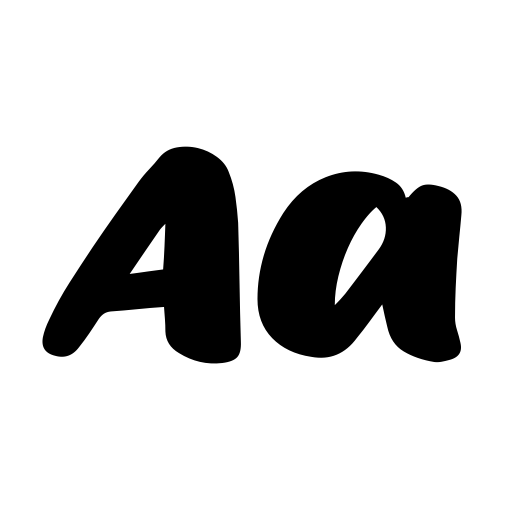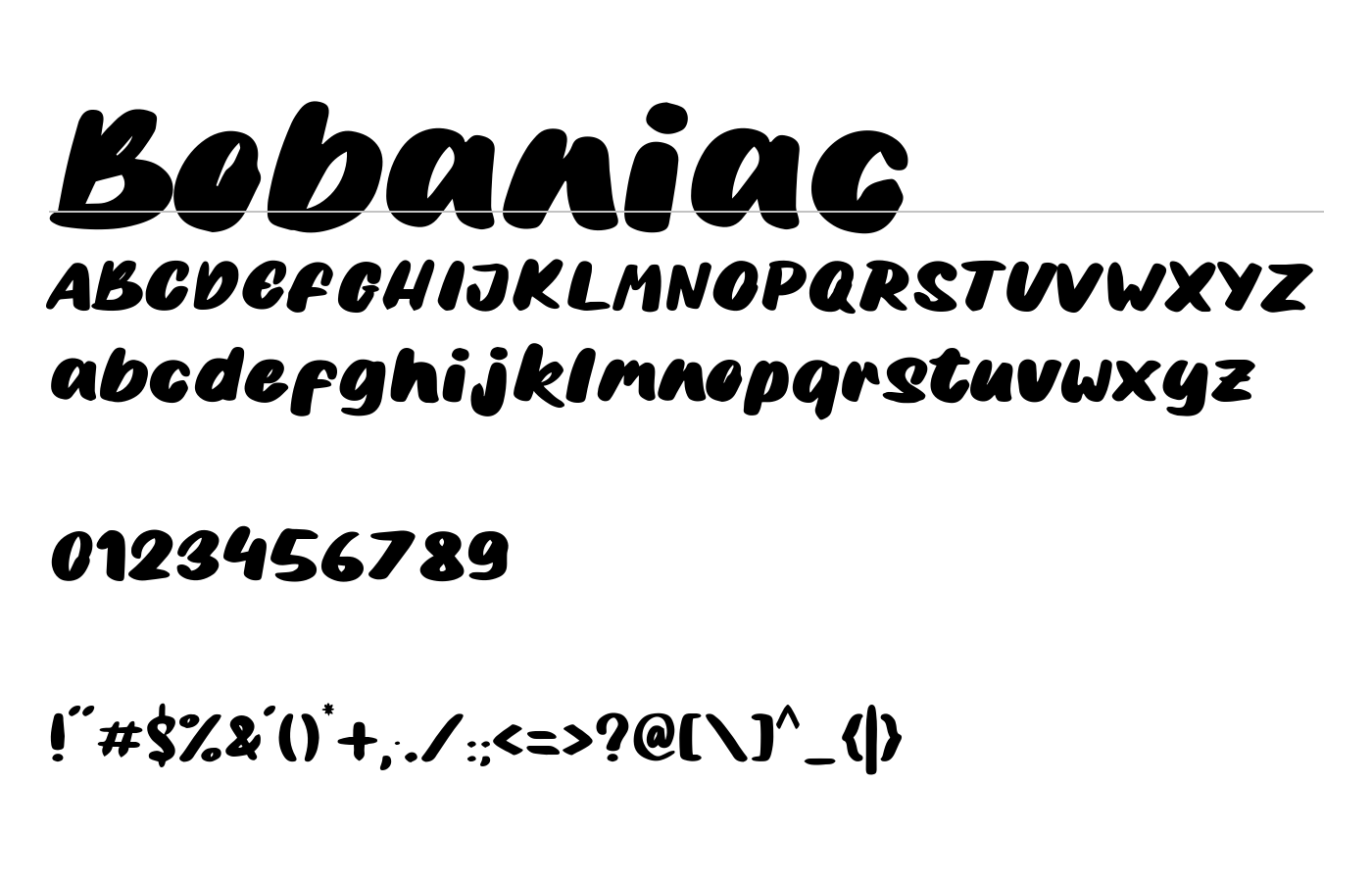
Bobaniac is a bold, playful script font that combines thick, rounded strokes with a casual hand-painted feel. Its lively letterforms and smooth curves make it perfect for designs that want to convey friendliness and creativity, such as logos, posters, and playful branding. This font works especially well for eye-catching headlines and informal, fun projects where personality is key.
Bobaniac Font
About Bobaniac Font
| Font family | Bobaniac Font |
| Designer | Pollux of Geminorum |